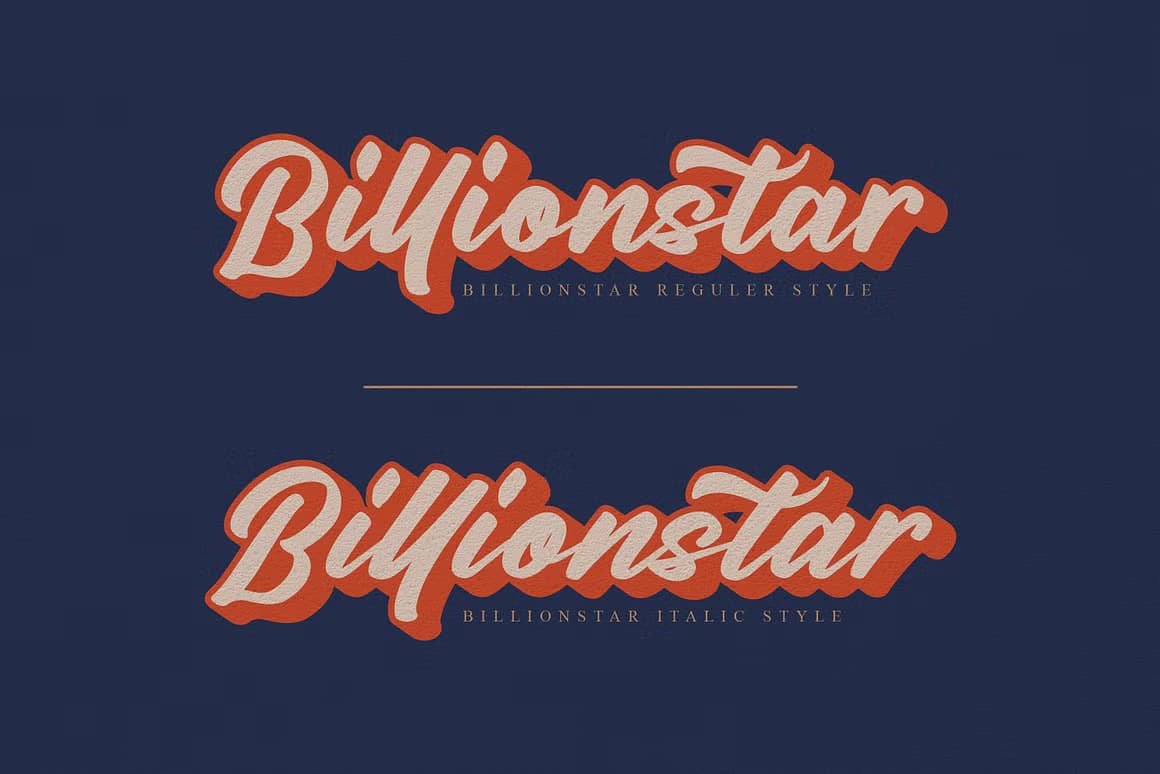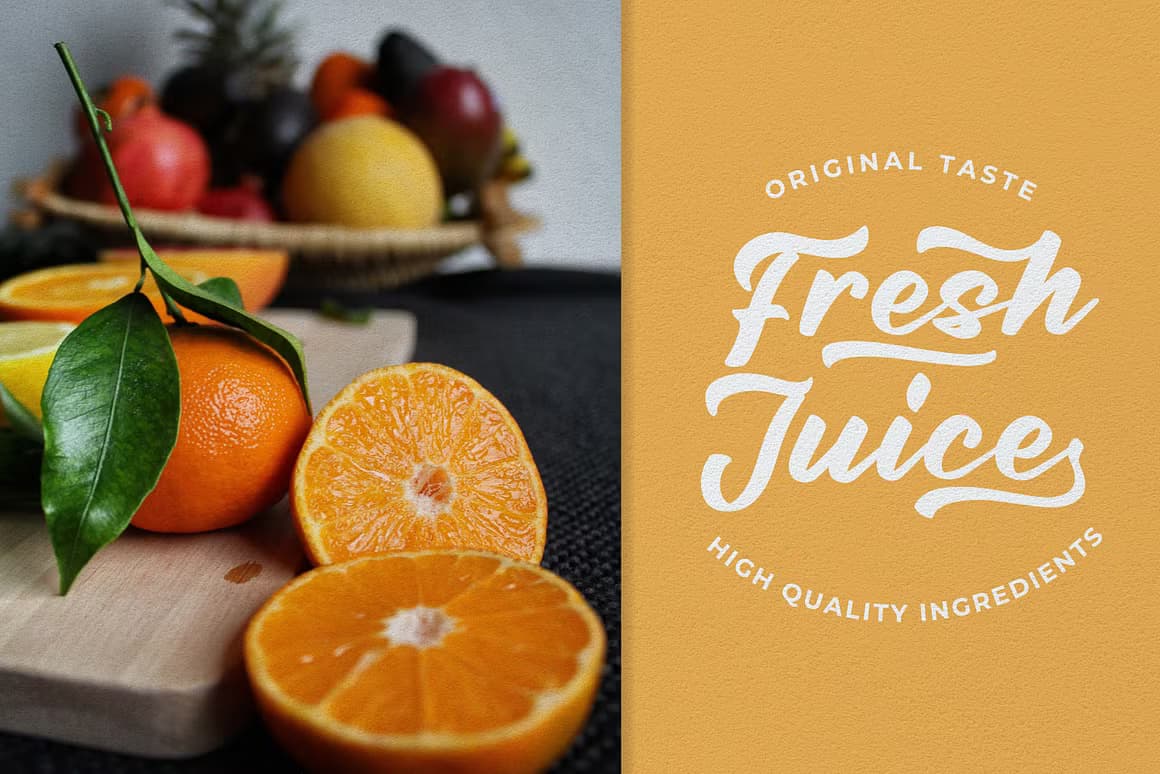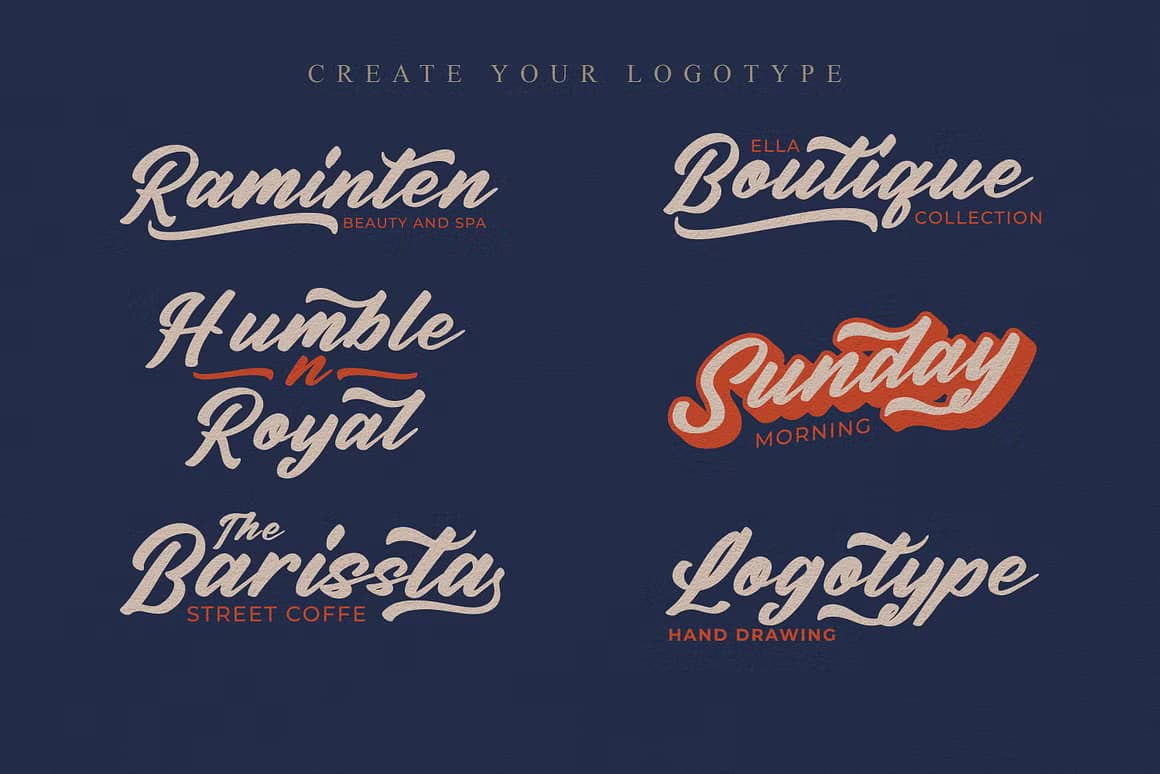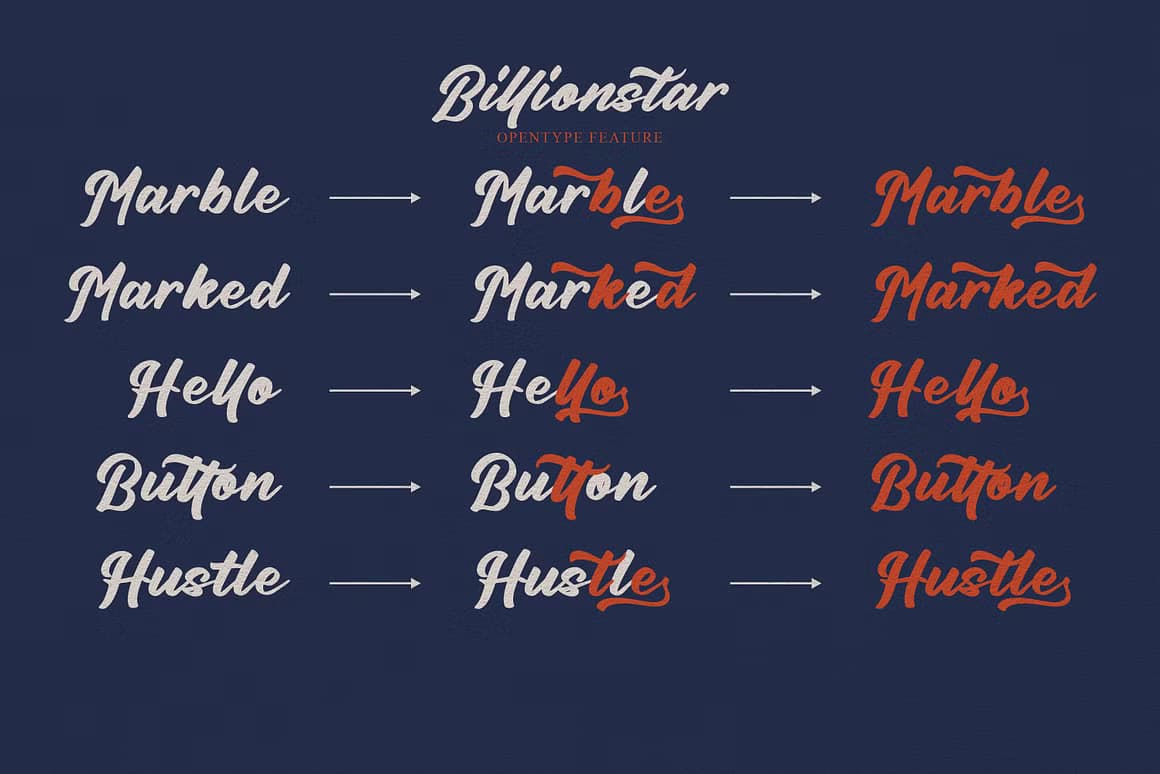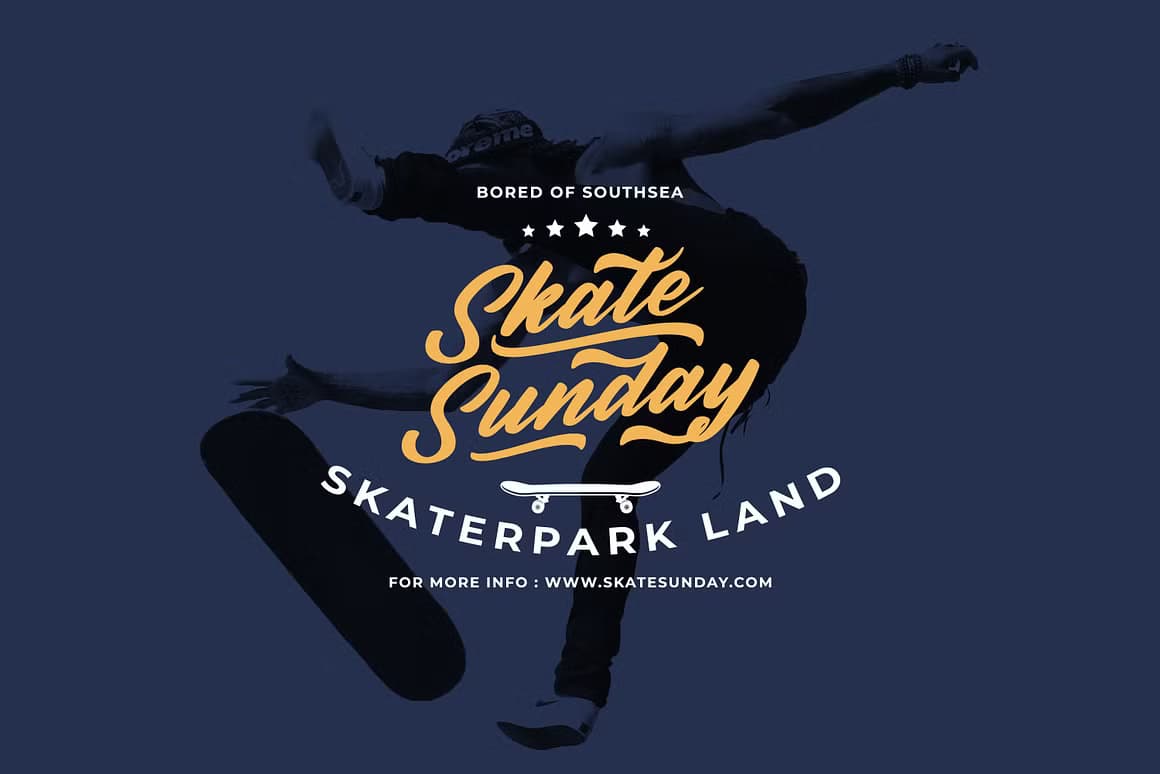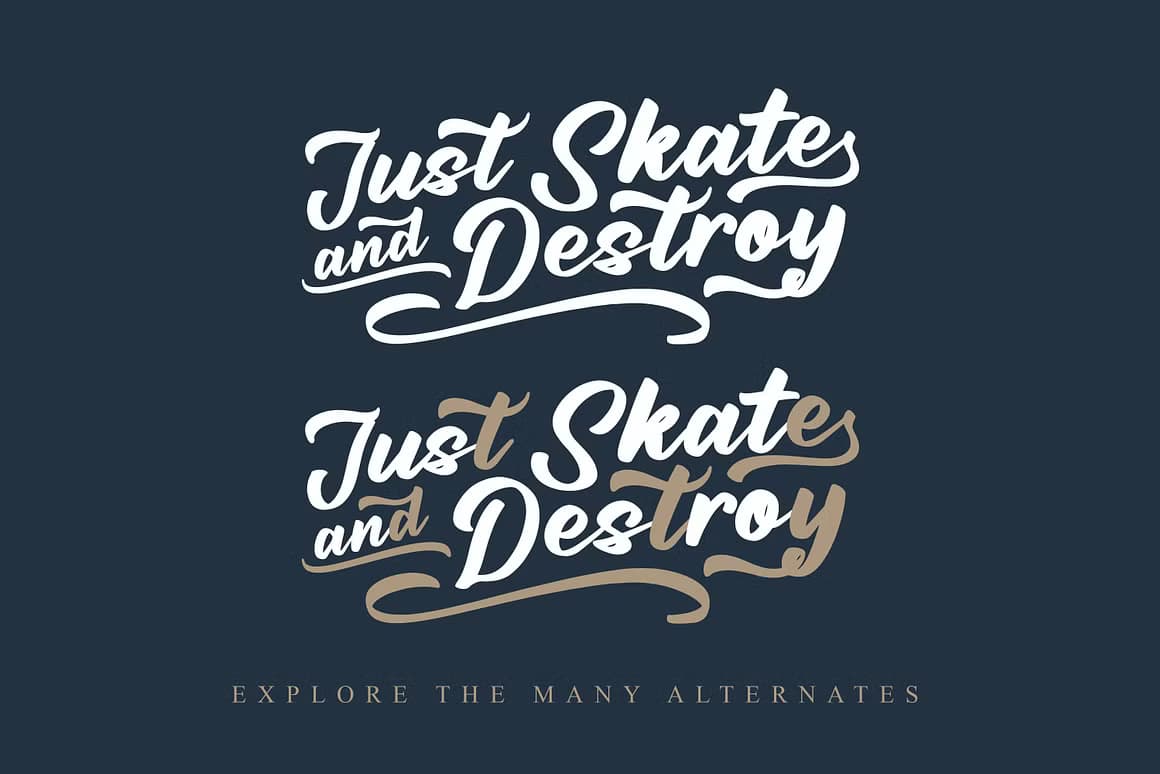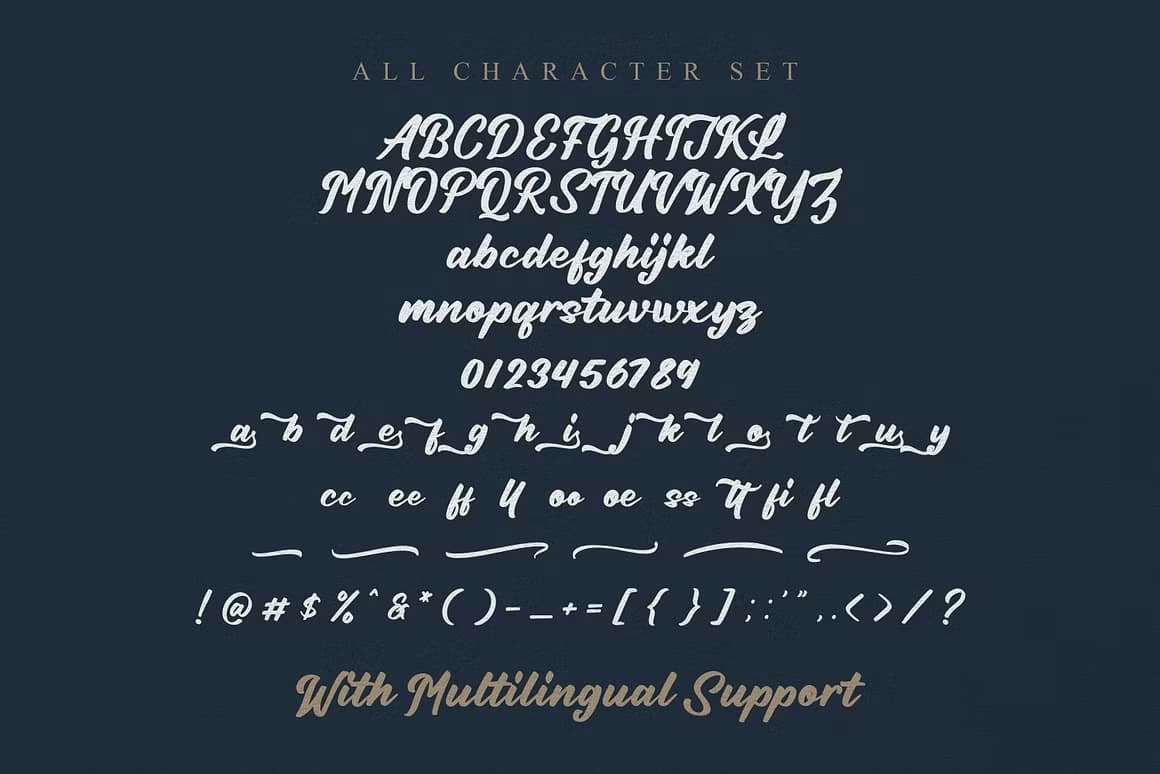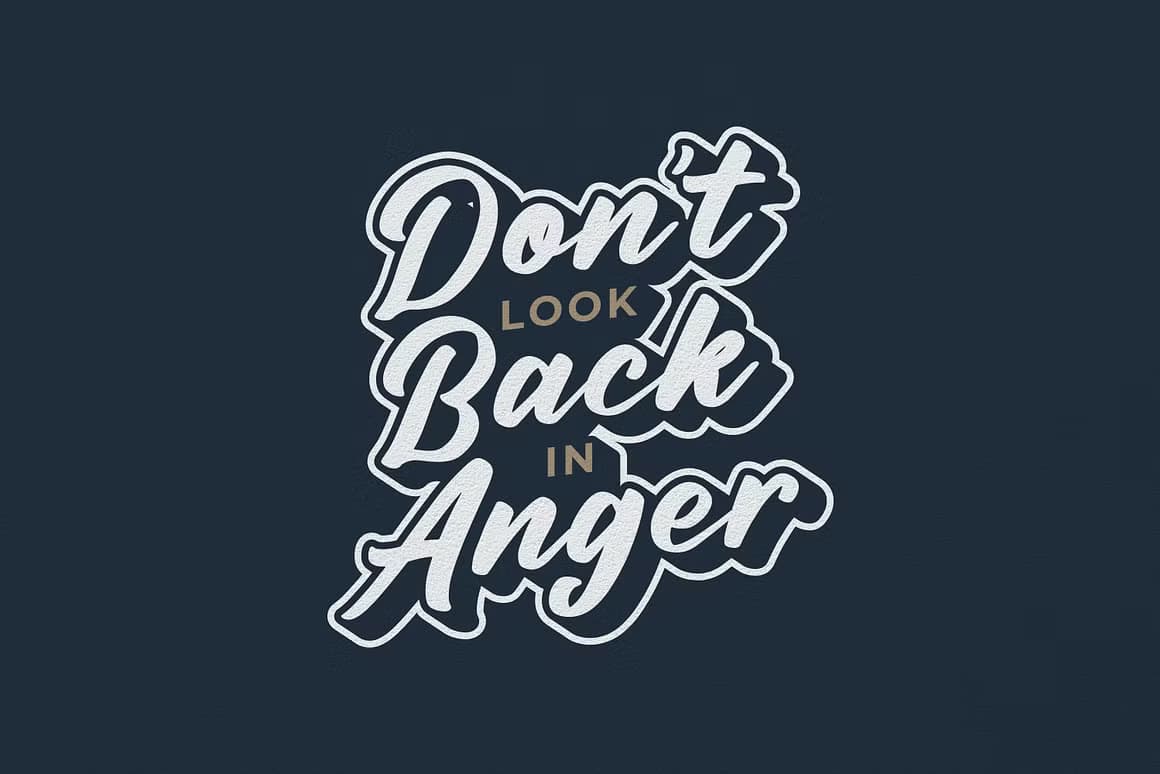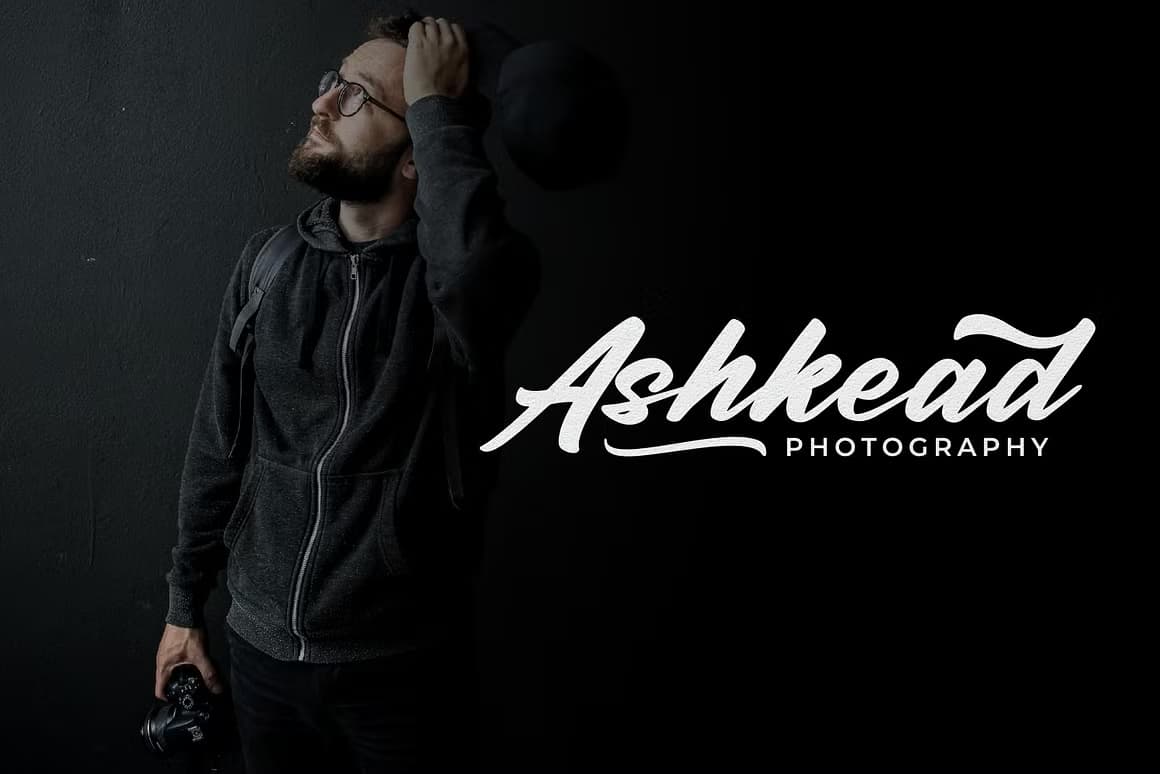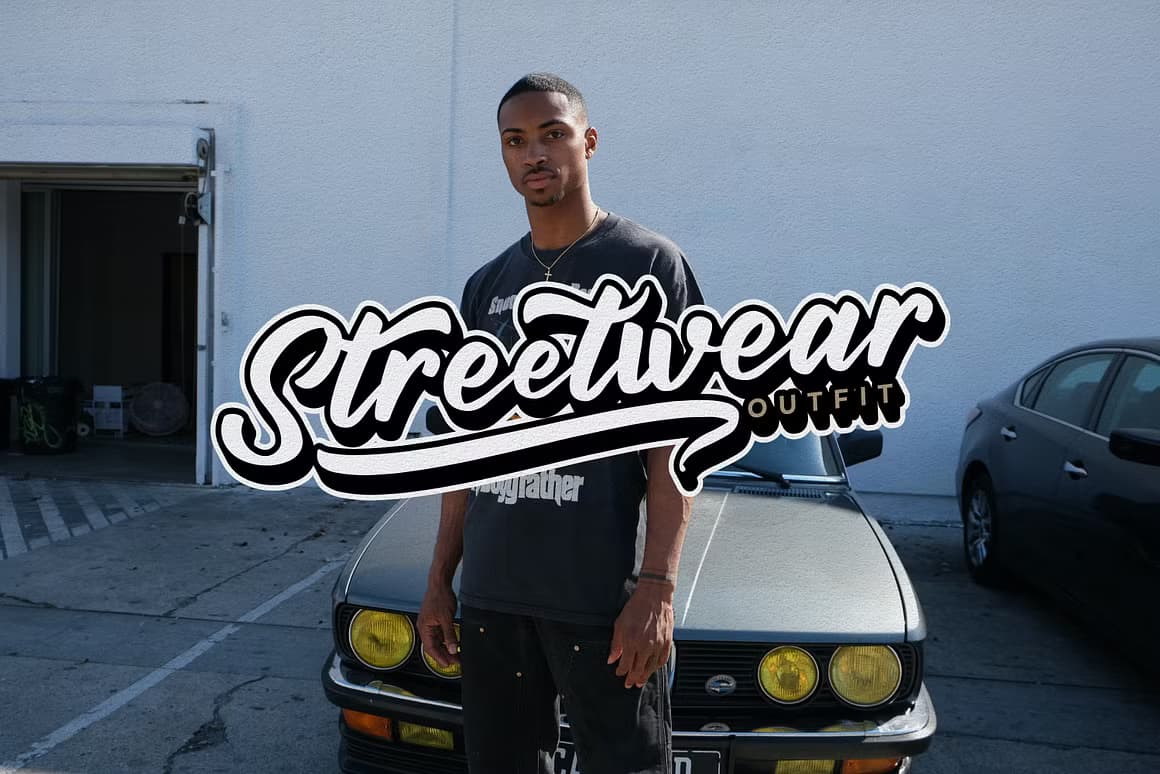
Billionstar is a stylish modern script font with 2 styles: Regular, Italic and includes a full set of uppercase and lowercase letters, multilingual symbols, numerals, punctuation, alternates, swash, and ligatures.
The font is perfect for branding, wedding invites, and cards, Christmas card, branding, logos, product packaging, invitation, quotes, t-shirt, label posters, this is perfect for branding, logos, invitation, and more.
Features:
- Multilanguage
- Ligatures
- Alternates
- Swash
- PUA Encoded